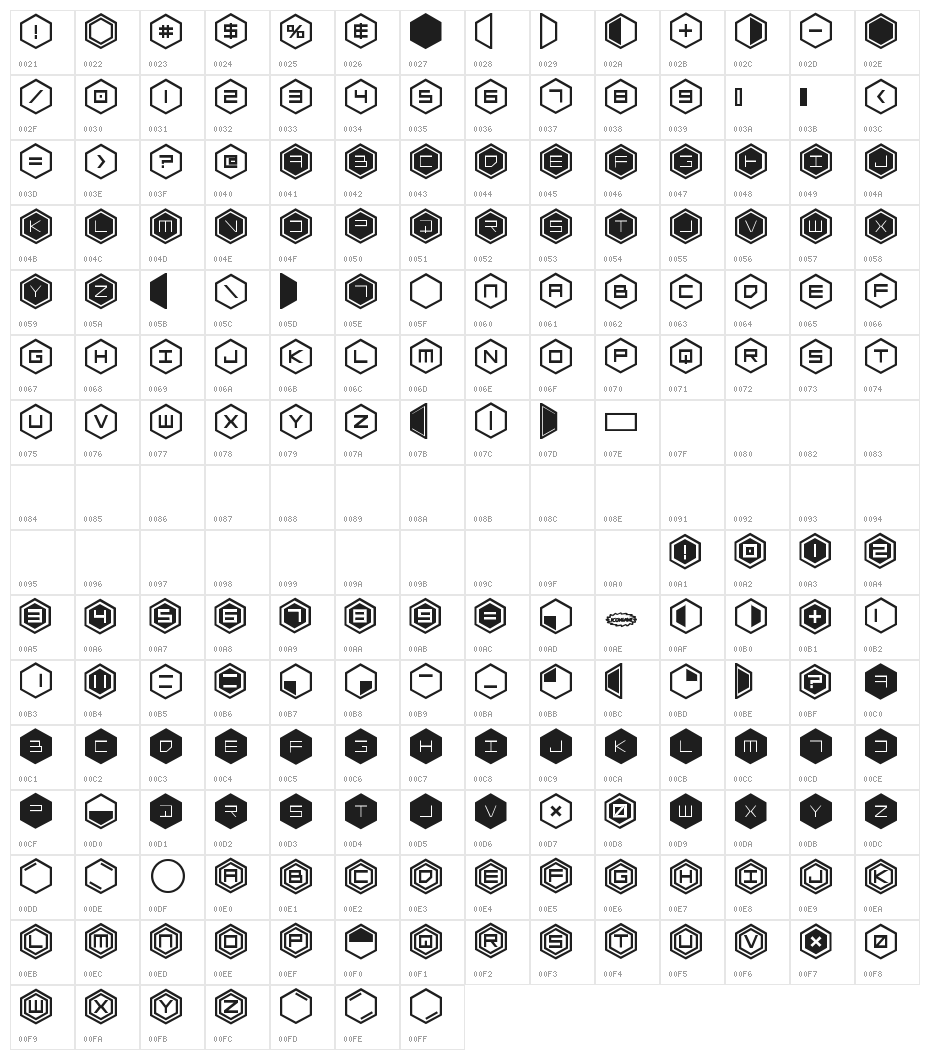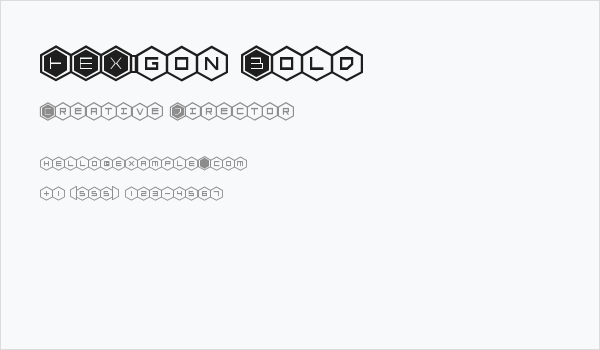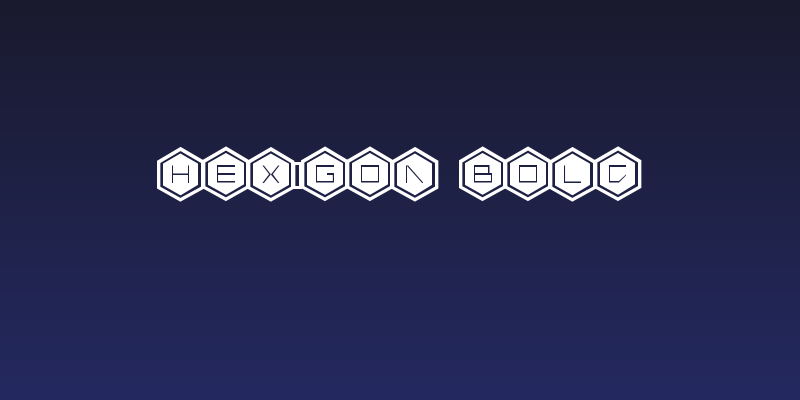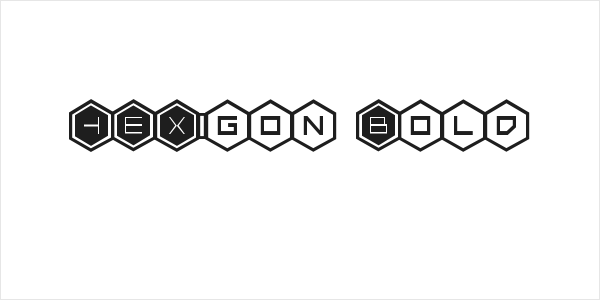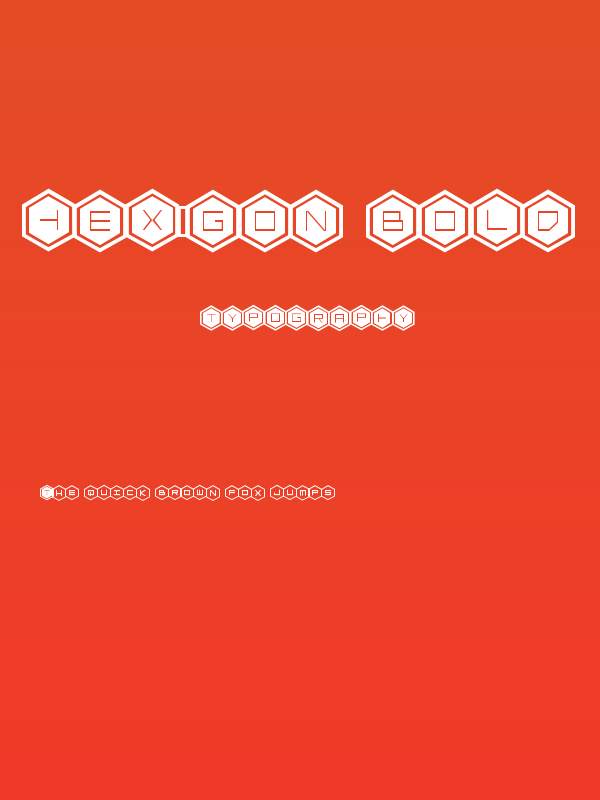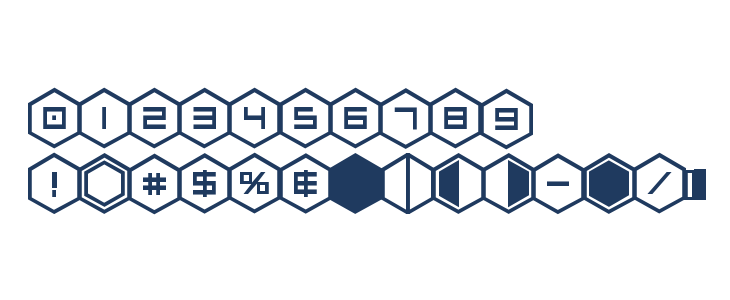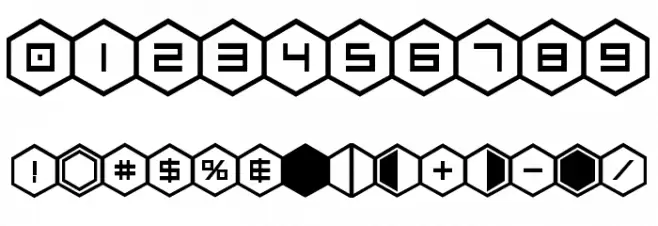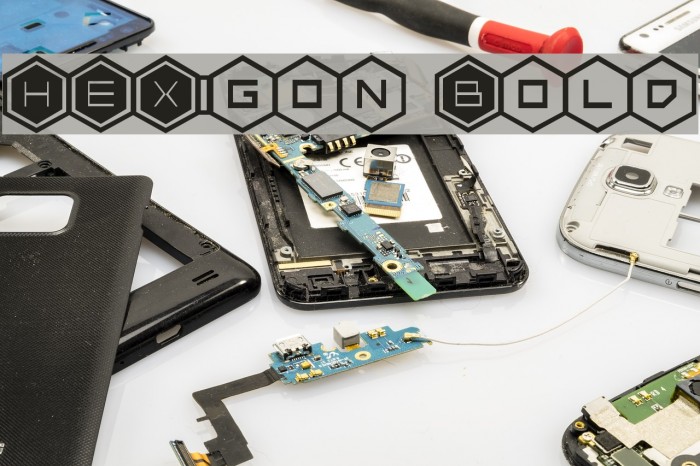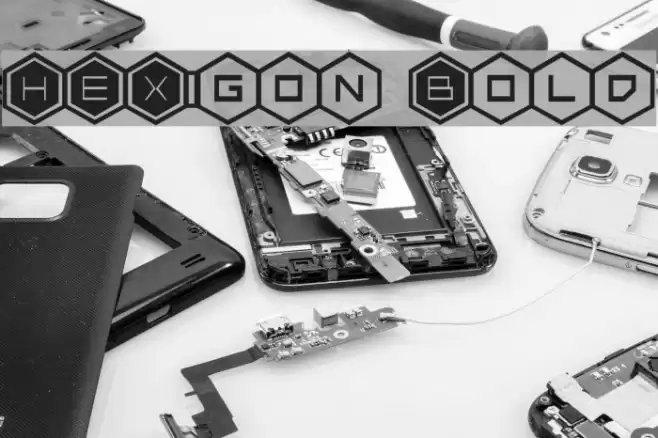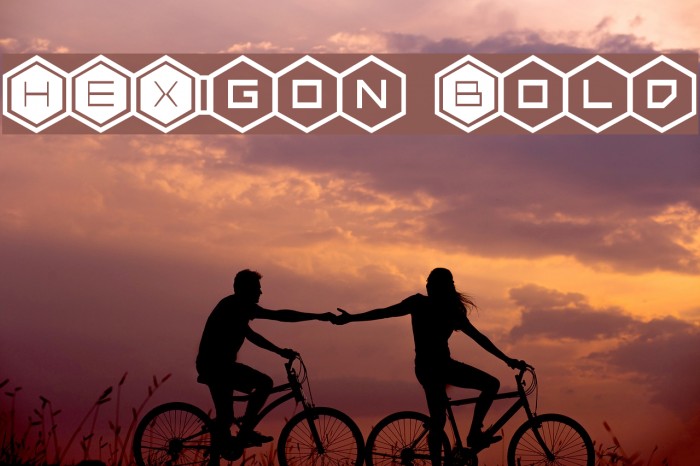
HEX:gon Bold Font
HEX:gon Bold Description
This font features a unique hexagonal design where each character is encapsulated within a hexagon. The bold, geometric style creates a striking visual impact, making it ideal for attention-grabbing designs. The uppercase and lowercase letters, numbers, and special characters are all consistently framed, providing a cohesive and structured appearance. The thick lines and sharp angles contribute to its bold and modern aesthetic, while the uniformity in shape ensures readability and visual harmony.